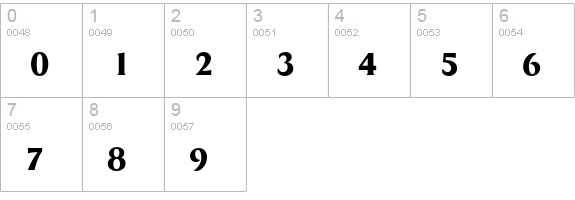
Dragon-Bold is a strong, high-contrast variant in the Dragon typeface family \xE2\x80\x94 well suited to headlines, attention-grabbing titles, and strong calls-to-action.
The Dragon-Bold font is a striking and powerful typeface that exudes a sense of strength and mystery. Its bold and sharp design makes it perfect for adding a touch of fierceness to any project. Whether you are working on a poster, logo, or branding materials, Dragon-Bold will make a bold statement and capture the attention of your audience. The best part is that Dragon-Bold is available for free download at FontsMarket.com. This means you can easily add this impressive font to your collection without any cost. Embrace the power and elegance of Dragon-Bold in your designs and watch them come to life with its captivating presence. Download it now and let your creativity soar with this dynamic font.